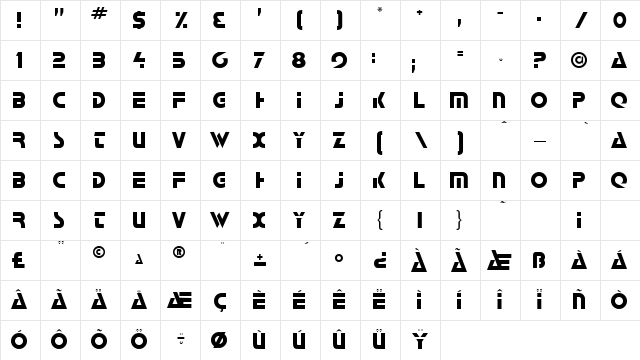
Complete Galactican Regular glyph index. Displaying only characters natively supported by Galactican Regular font.
Galactican is a composed and adaptable typeface that performs quietly and consistently across a wide range of design contexts.